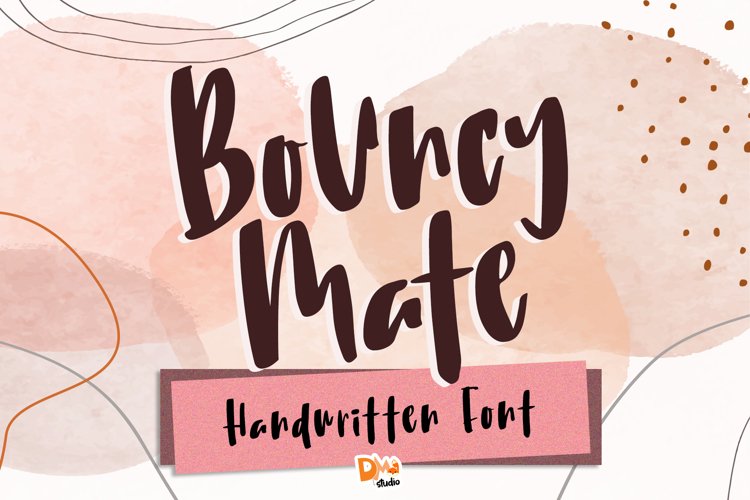
Bouncy Mate Quirky Handwritten Font
Introducing this unique, quirky yet awesome handwritten font : Bouncy Mate
It's rough brush, casual and bouncy--as its name--style font, great for your diy crafts, quotes, social media posts, magazine style designs, websites, blogs, logos, and even your own invitation designs.
Explore your imagination using this gorgeous font!